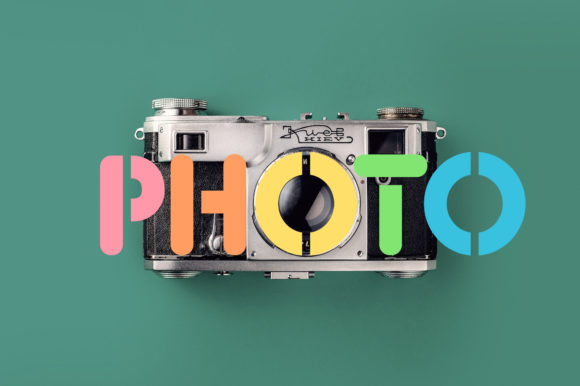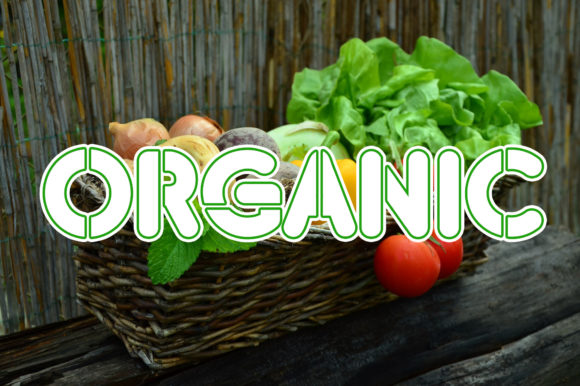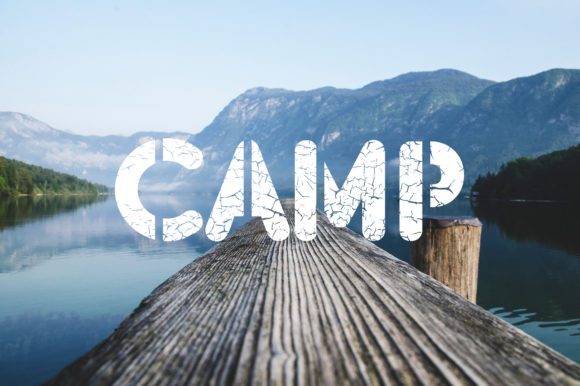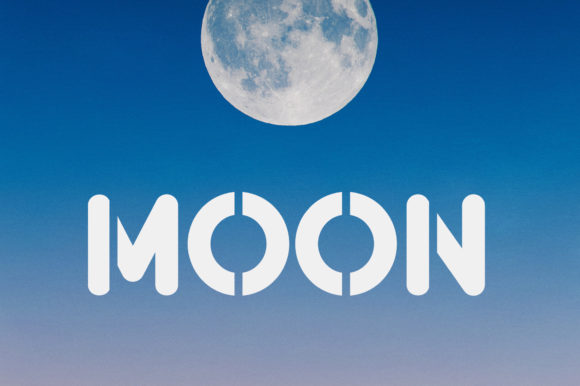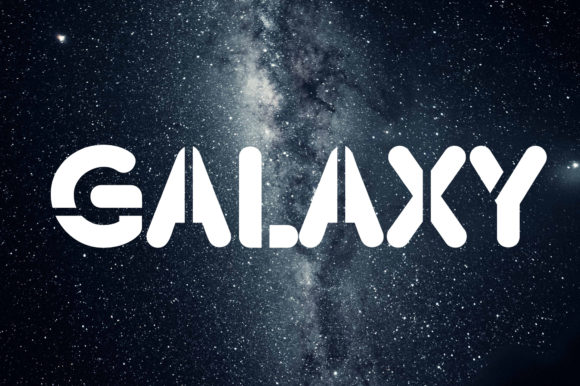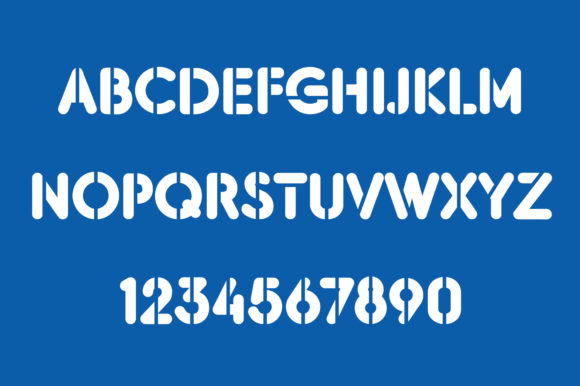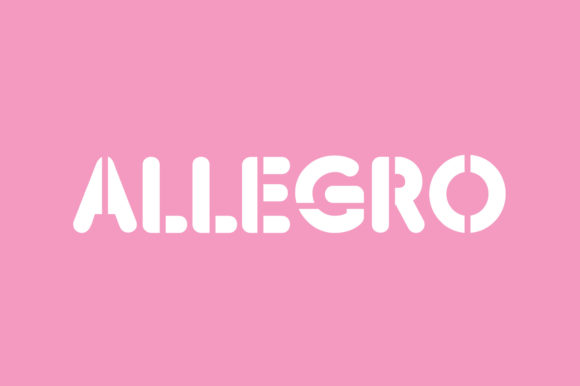
Introducing Allegro Font: The Ultimate Display Font for Creative Projects
Are you tired of using the same old fonts for your creative projects? Look no further than Allegro Font, a cool, neat, and minimalistic display font that’s sure to make your designs stand out. With its clean and elegant lines, Allegro Font is the perfect addition to any project, from branding and advertising to packaging and web design.
The Versatility of Allegro Font
One of the best things about Allegro Font is its versatility. Its unique design makes it suitable for a wide range of projects, from modern and edgy to classic and sophisticated. Whether you’re working on a logo, brochure, or website, Allegro Font can easily be matched to your creative vision. Its minimalistic style ensures that it won’t overpower your design, but rather complement it and add a touch of elegance.
Key Features of Allegro Font
• Clean and Minimalistic Design: Allegro Font features a clean and minimalistic design that’s perfect for modern designs.
• Highly Versatile: Allegro Font can be used for a wide range of projects, from branding and advertising to packaging and web design.
• Elegant Lines: The font features elegant lines that add a touch of sophistication to any design.
• Easy to Read: Despite its minimalist design, Allegro Font is easy to read, even at small sizes.
How to Use Allegro Font in Your Designs
Using Allegro Font in your designs is easy. Here are a few tips to get you started:
• Pair it with Other Fonts: Allegro Font pairs well with other fonts, especially those with a bold or serif design.
• Use it for Headings: Allegro Font is perfect for headings and titles, where its elegant lines can really shine.
• Experiment with Colors: Allegro Font looks great in a variety of colors, from bold and bright to subtle and muted.
Benefits of Using Allegro Font
There are many benefits to using Allegro Font in your designs. Here are a few:
• Unique Design: Allegro Font has a unique design that’s sure to make your designs stand out.
• Improved Readability: Allegro Font is easy to read, even at small sizes, making it perfect for body text and captions.
• Increased Versatility: Allegro Font can be used for a wide range of projects, from modern and edgy to classic and sophisticated.
Author Vladimir Carrer
In conclusion, Allegro Font is a cool, neat, and minimalistic display font that’s perfect for creative projects. Its clean and elegant lines make it suitable for a wide range of designs, from branding and advertising to packaging and web design. With its versatility, ease of use, and unique design, Allegro Font is sure to become a staple in any designer’s toolkit.